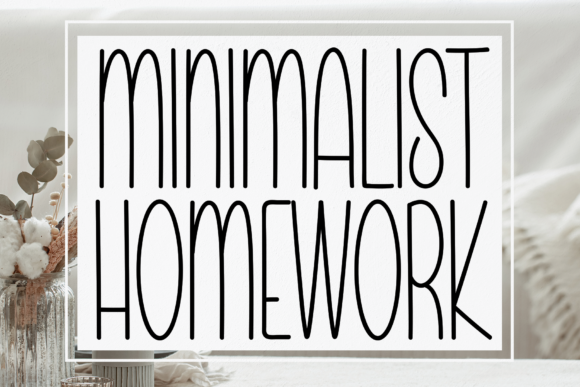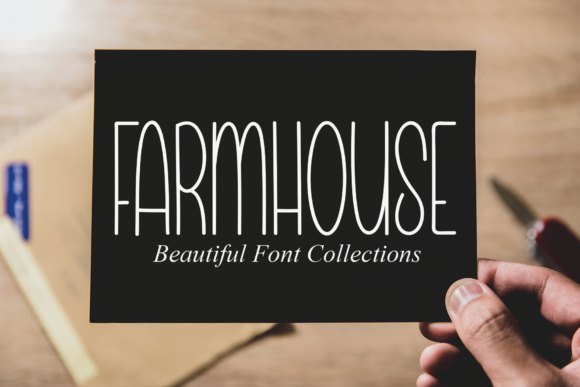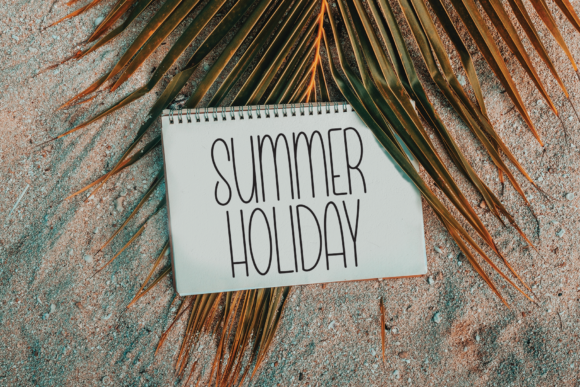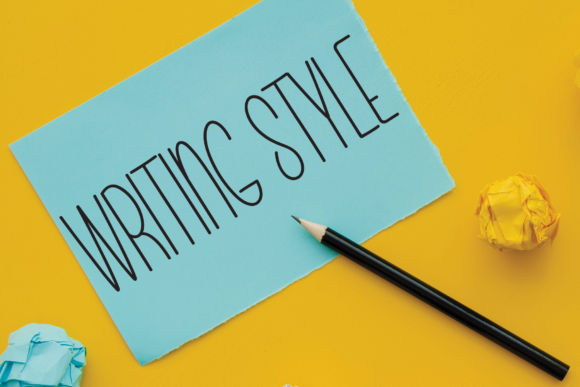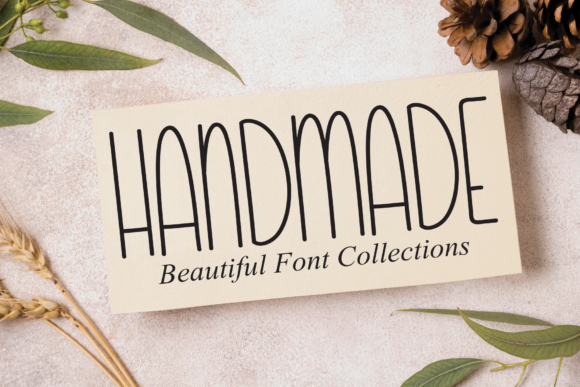
Minimalist Homework Font
About Minimalist Homework Font
Minimalist Homework is a simple, tall and casual handwritten font. No matter the topic, this font will be an incredible asset to your fonts’ library, as it has the potential to elevate any creation.